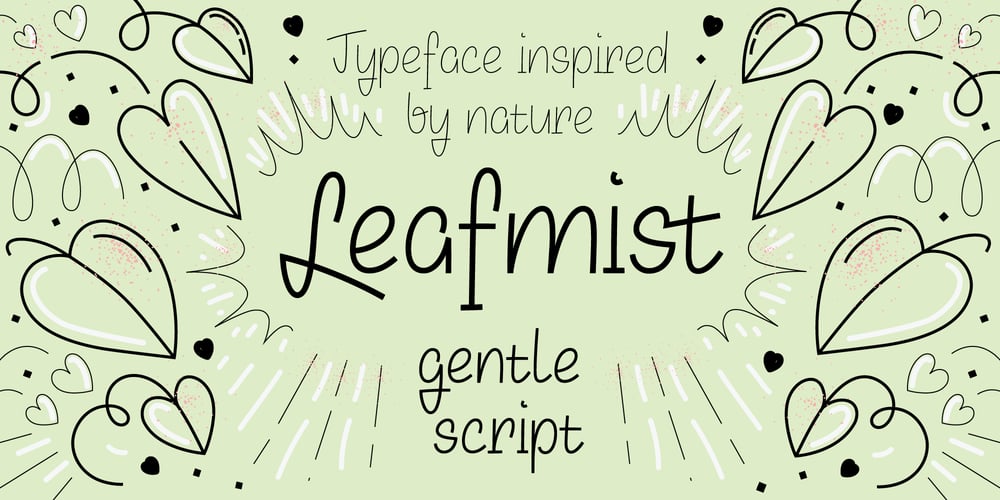
Leafmist Font Family was designed by Agnieszka Olszewska and published by Agnieszka Ewa Olszewska. Leafmist contains 4 styles and family package options. A whimsically elegant script font inspired by nature. This versatile typeface comes in four weights and features European diacritics along with a selection of ligatures. Picture it gracing café menus, children’s books, or the packaging of delicious cookies, adding a touch of charm wherever it’s seen. With mid-century vibes and a hint of retro allure, it’s perfect for neon signs and matchbook designs. Inspired by the lush foliage of Epirerium aurrium, this font brings a piece of nature’s beauty into every project. Join me in celebrating creativity and nature with this delightful typeface.